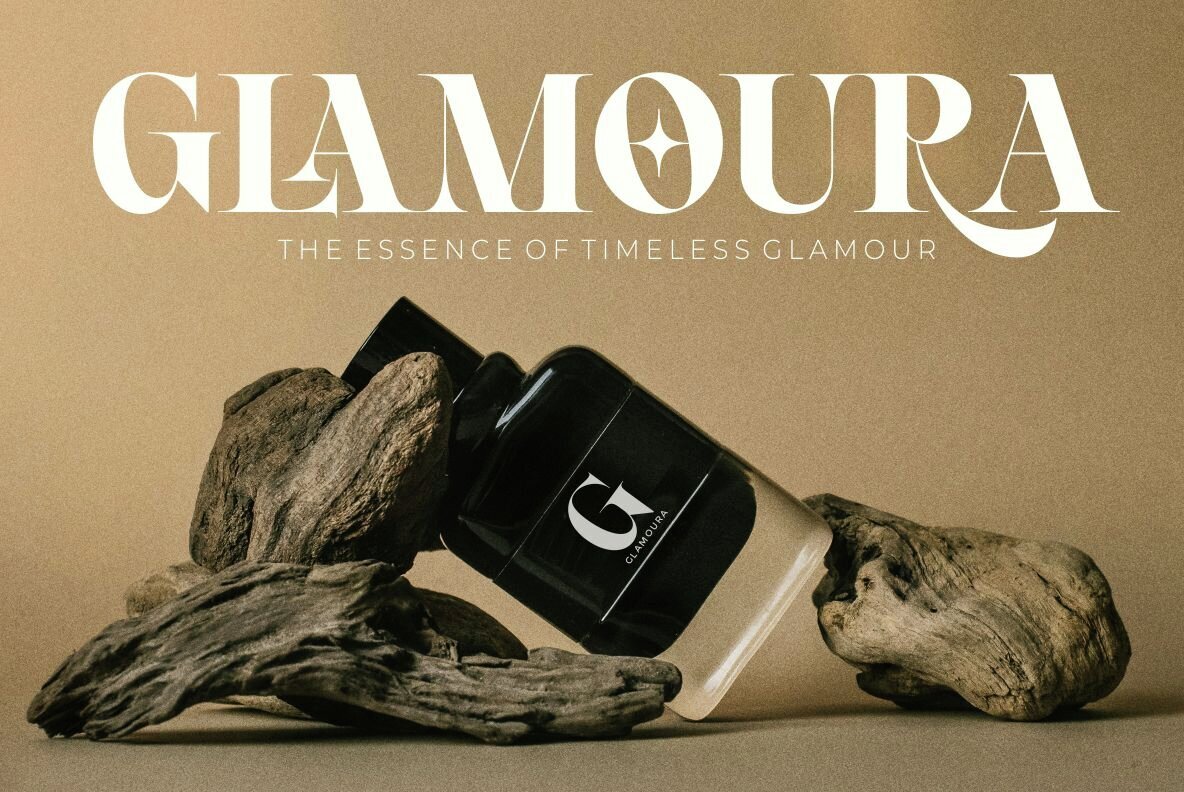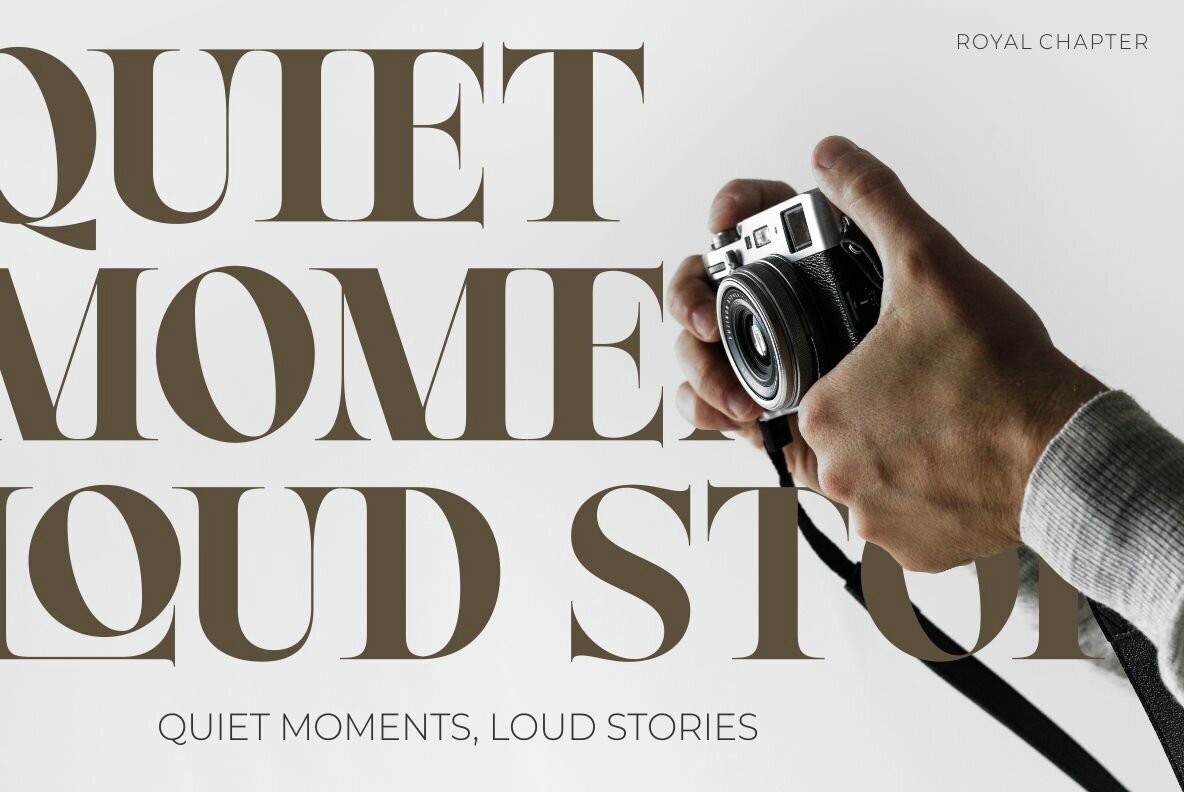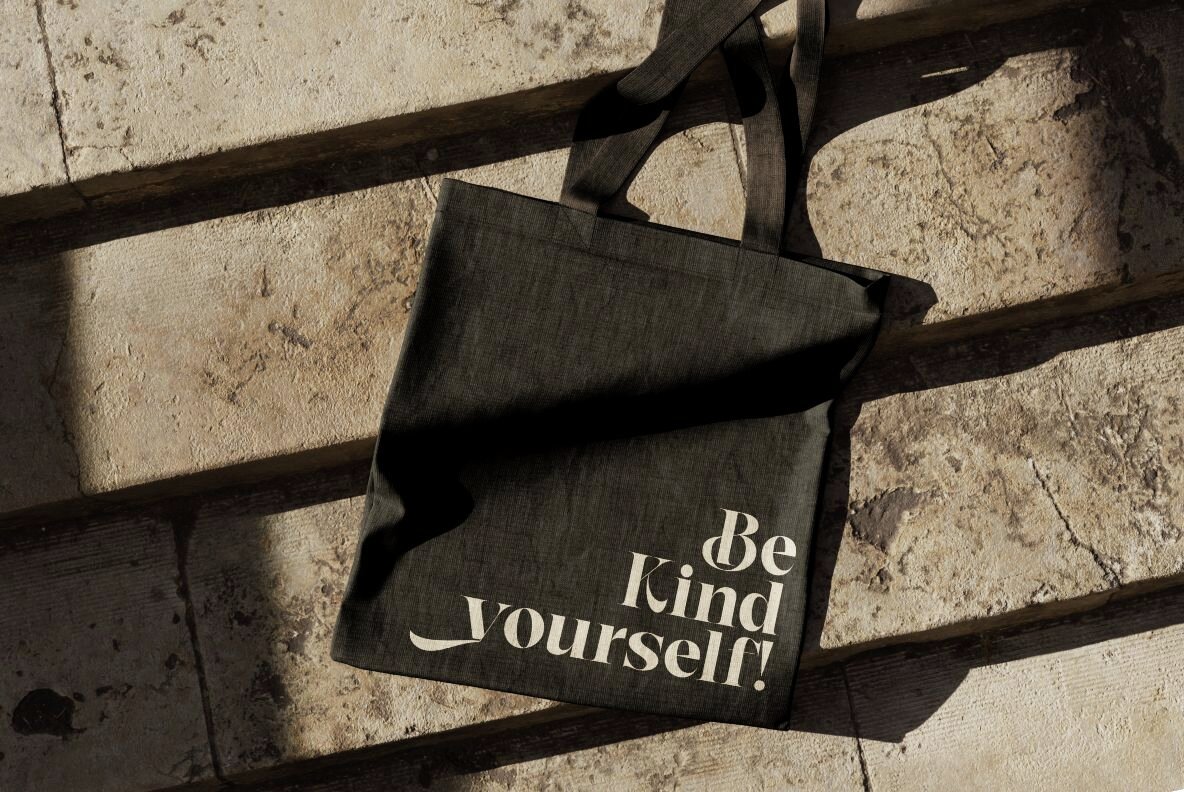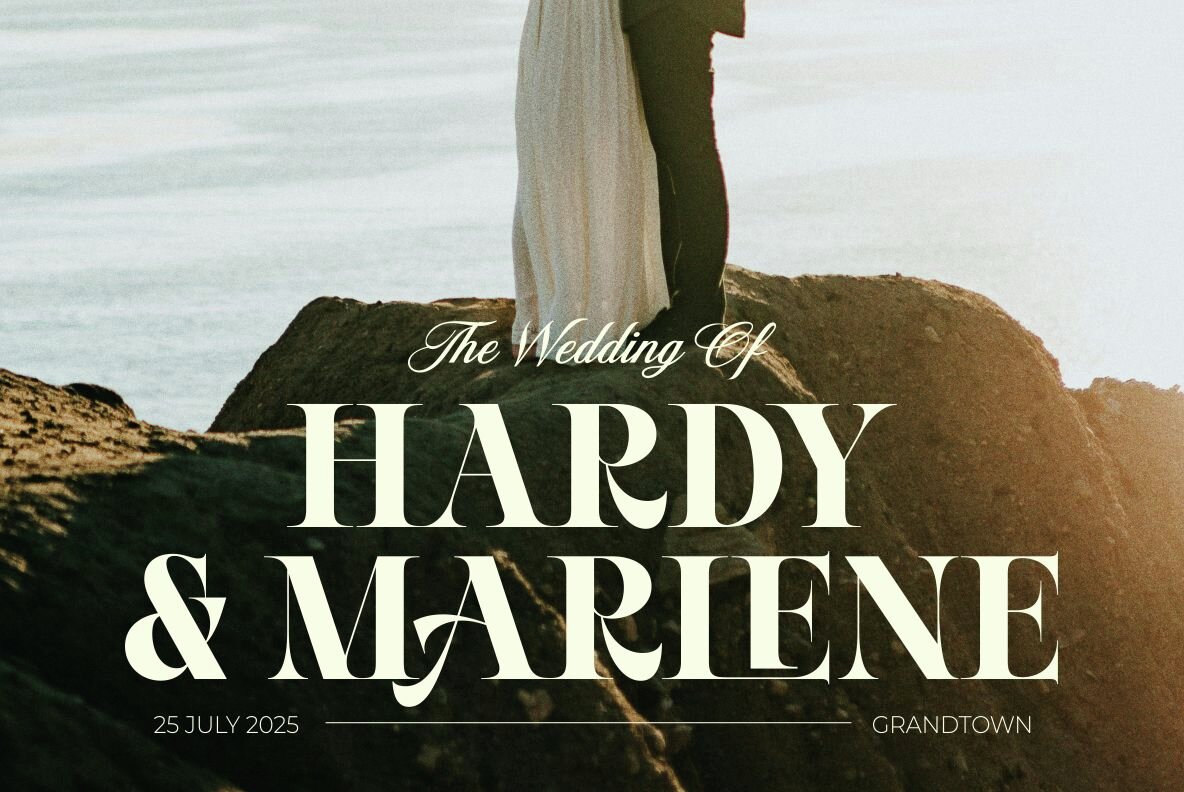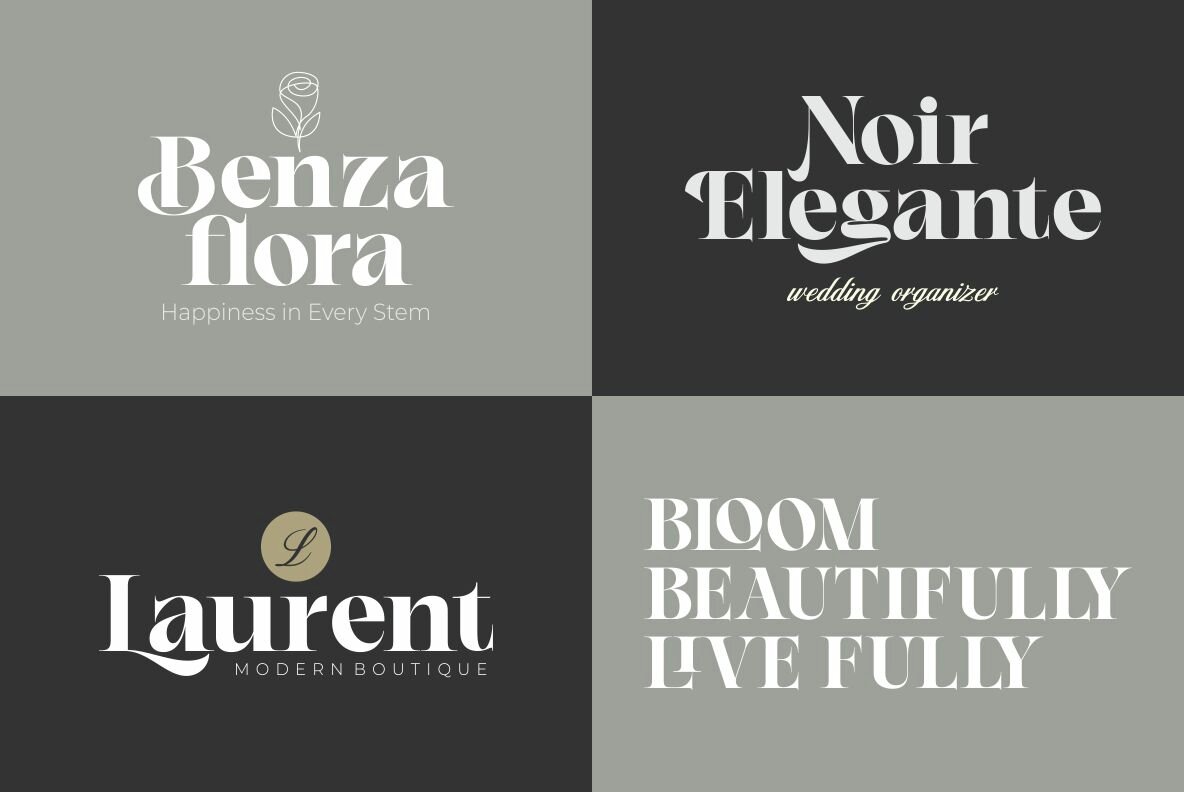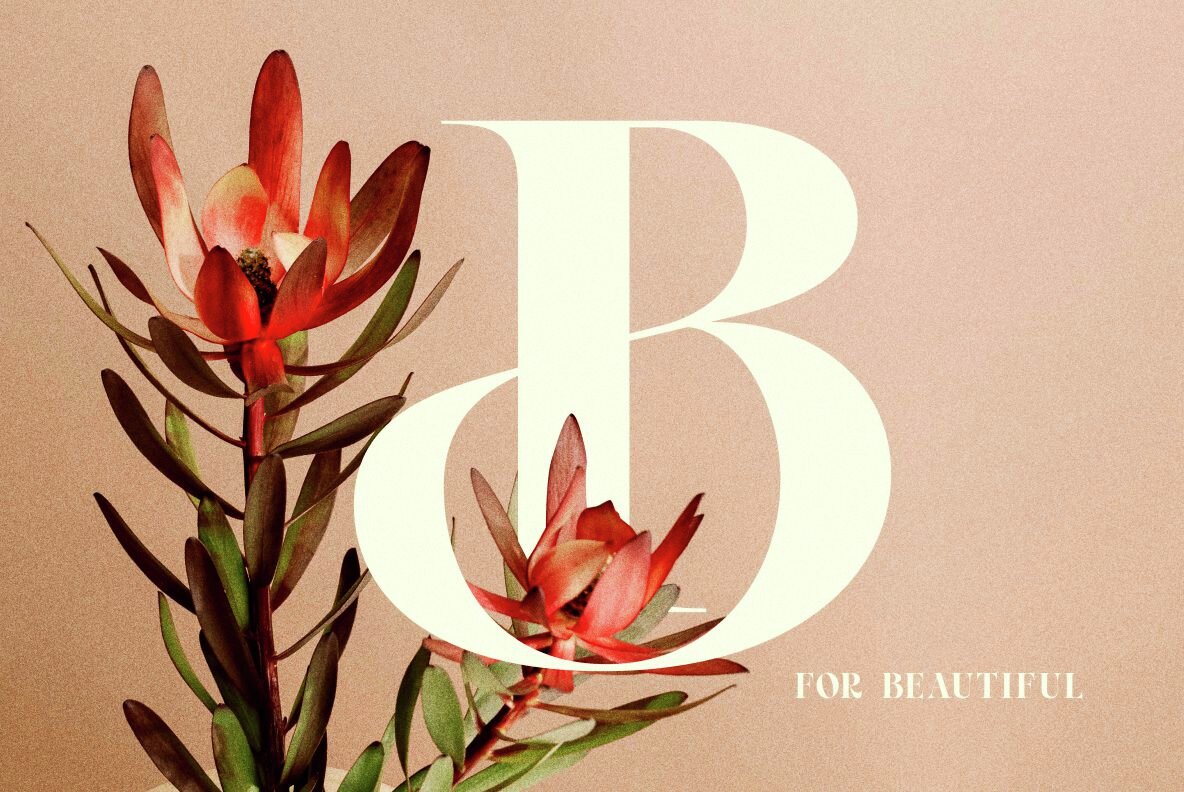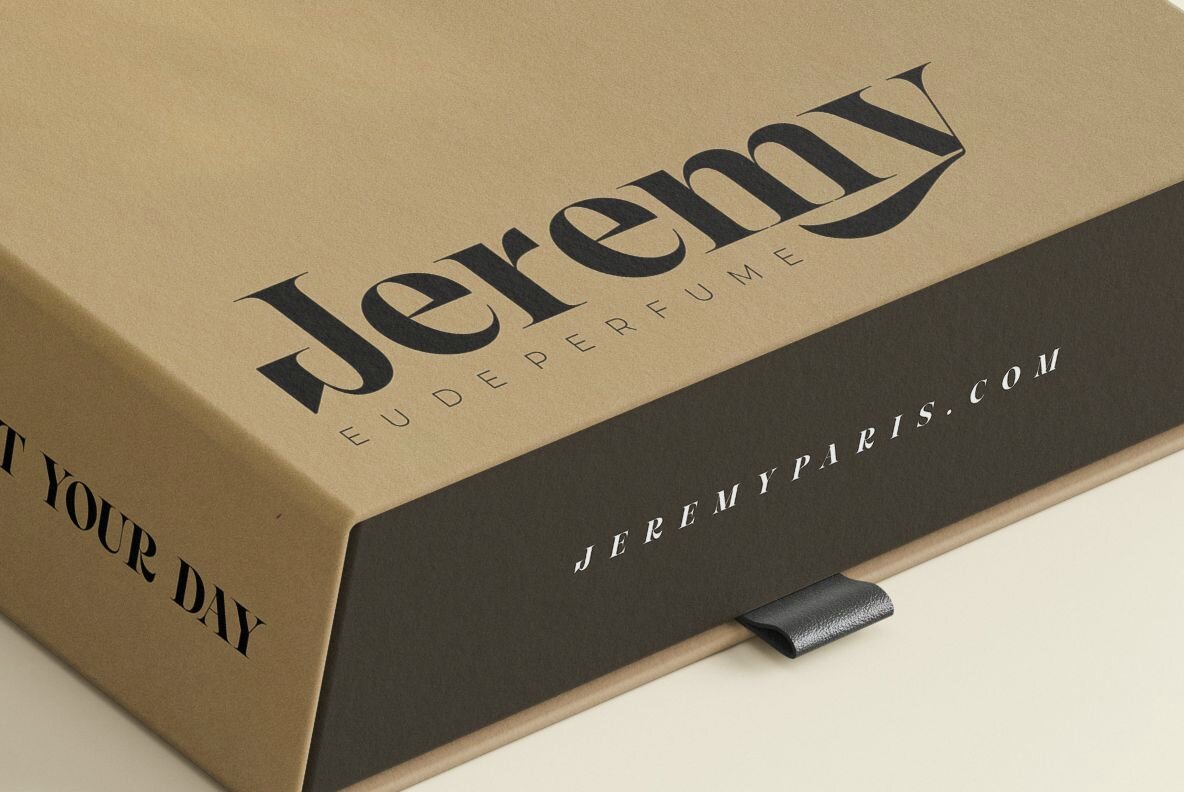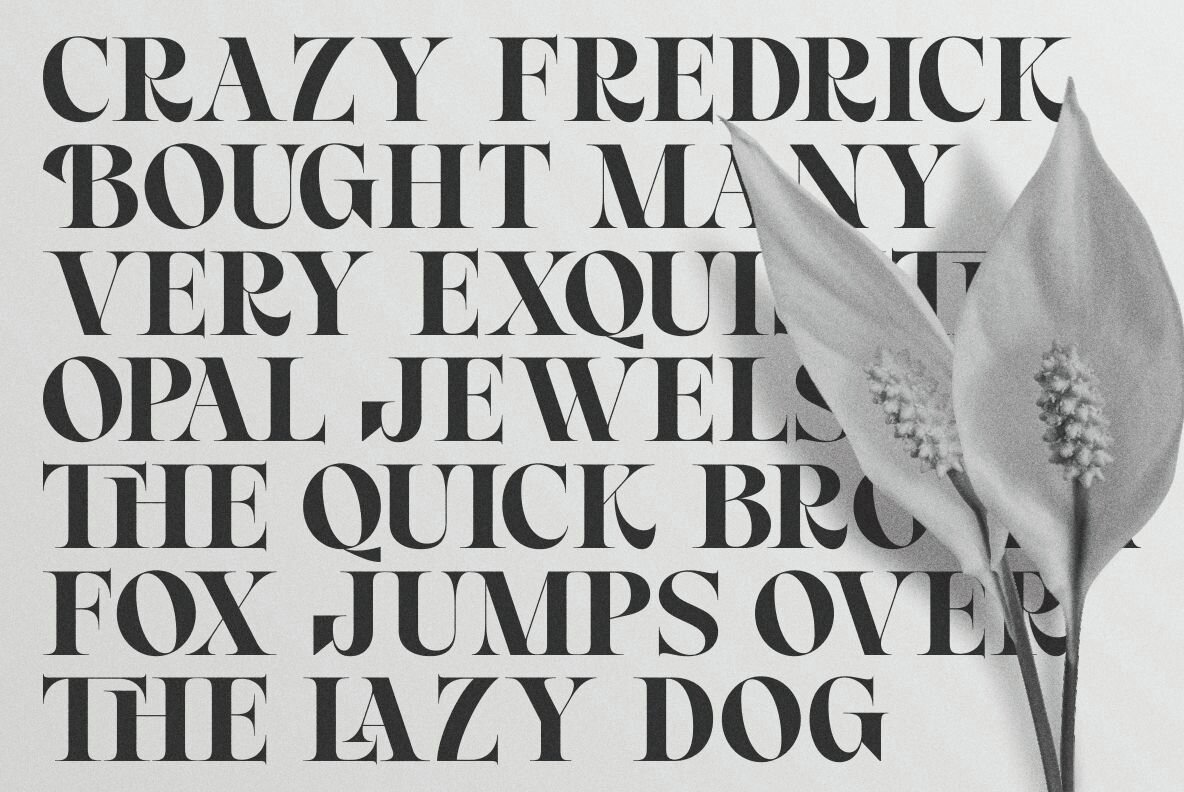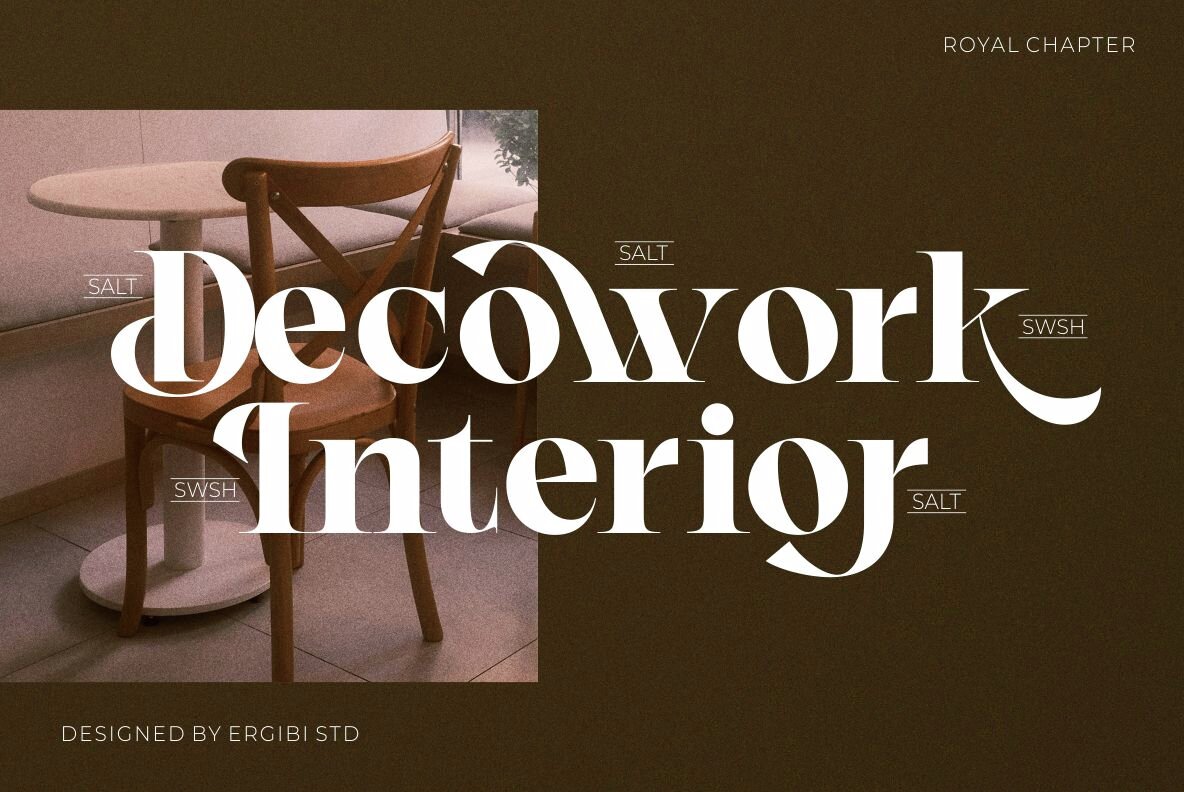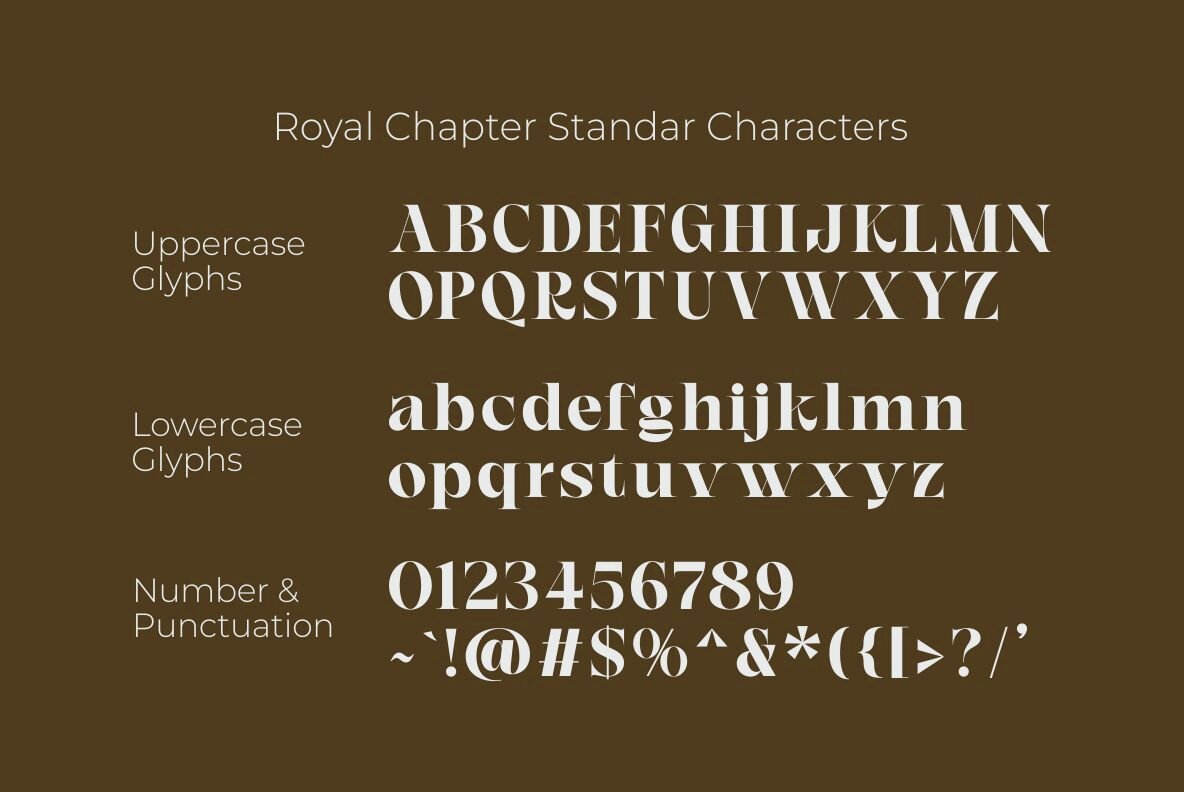
Royal Chapter Font
Royal Chapter
The Royal Chapter font marries timeless elegance with a refined sophistication. Designed with sharp serifs and balanced proportions, it offers a contemporary flair ideal for high-end branding, editorial designs, or luxury packaging. This typeface achieves a harmonious blend of tradition and modernity, infusing each word with a regal and distinguished aura.Royal Chapter: Timeless Elegance in a Modern Serif